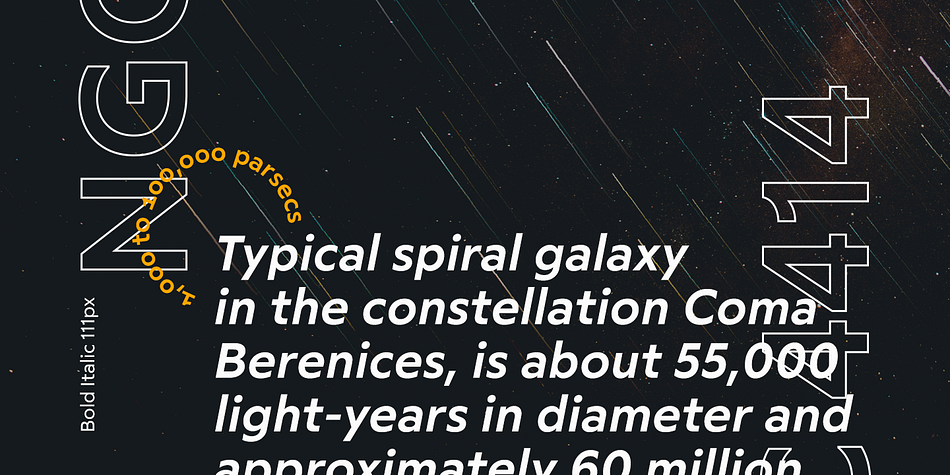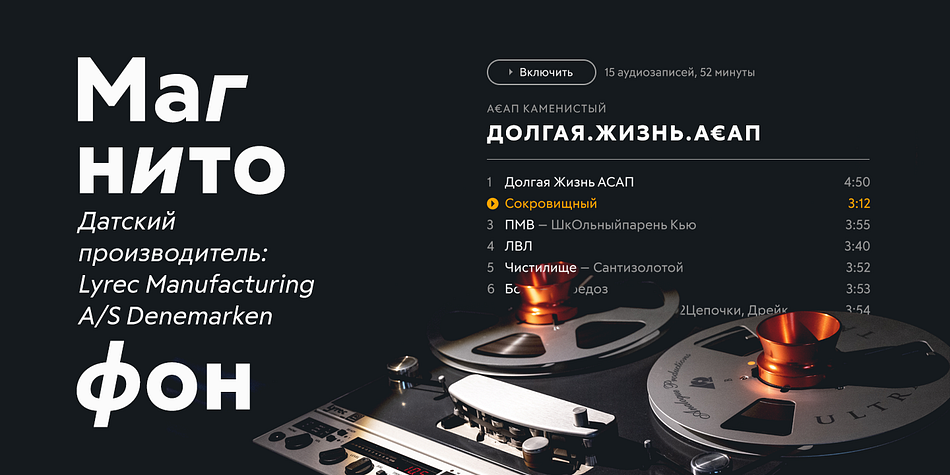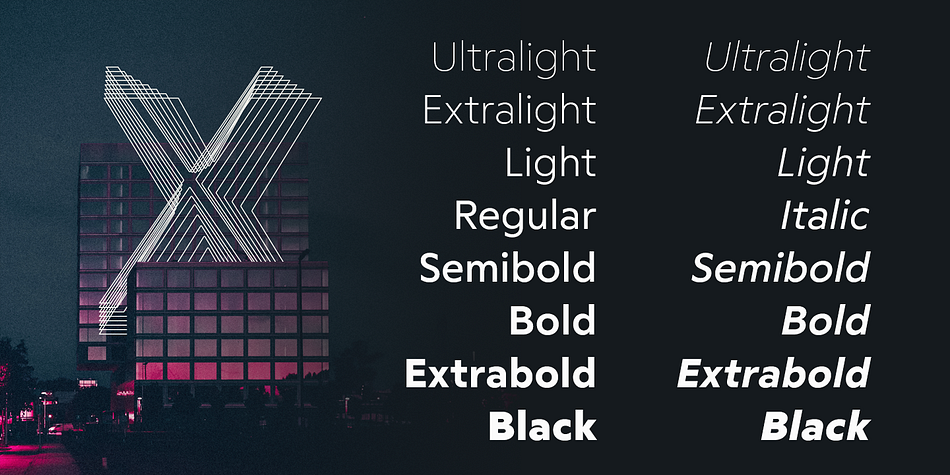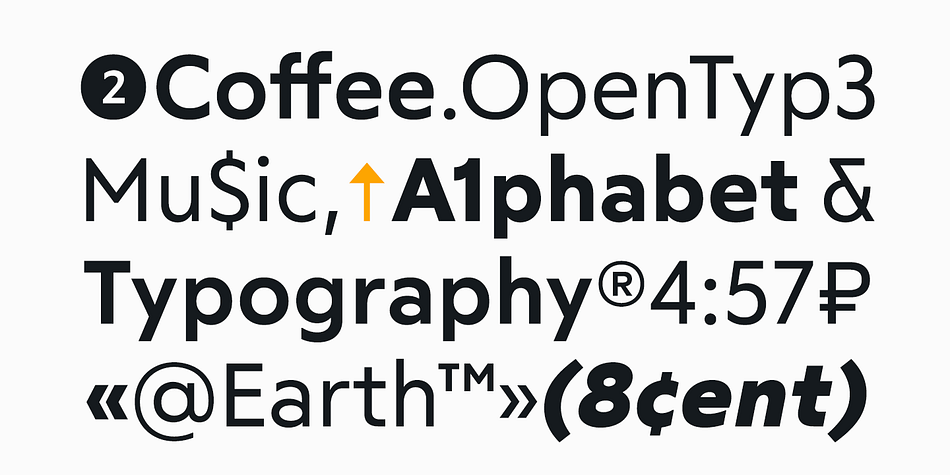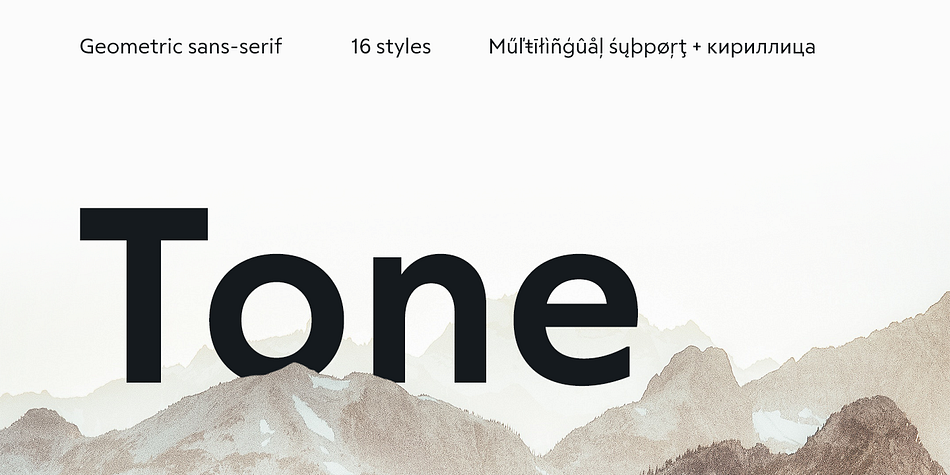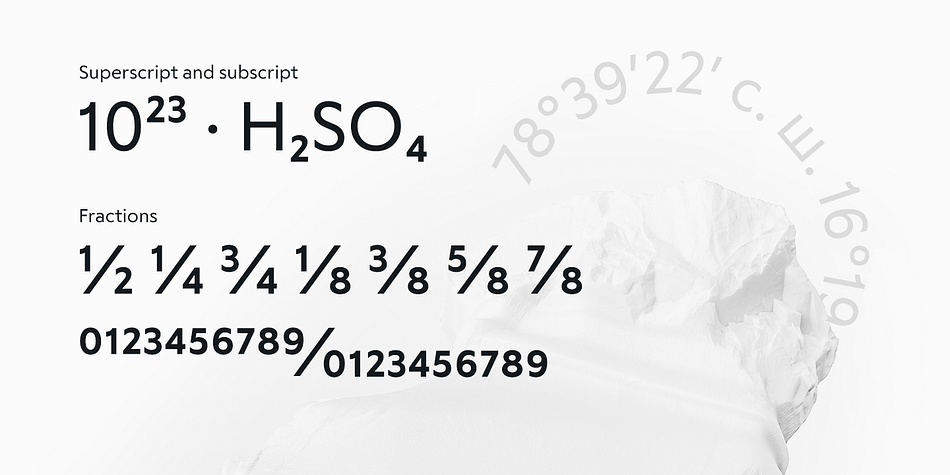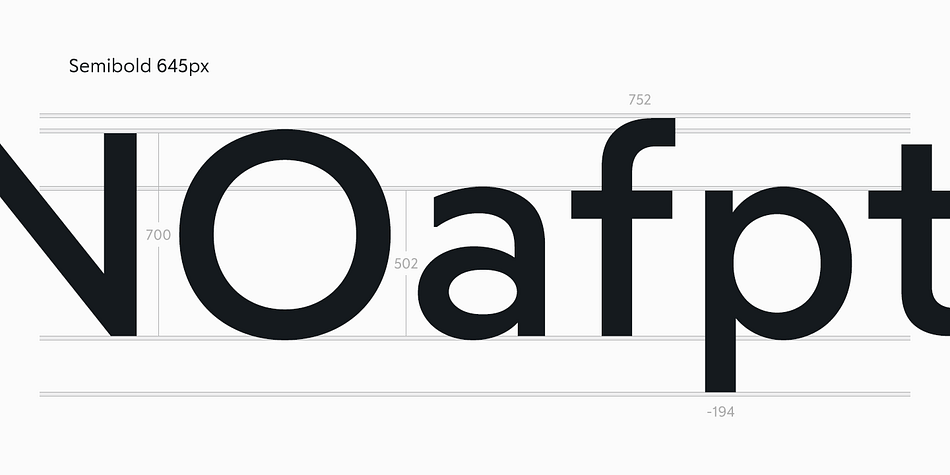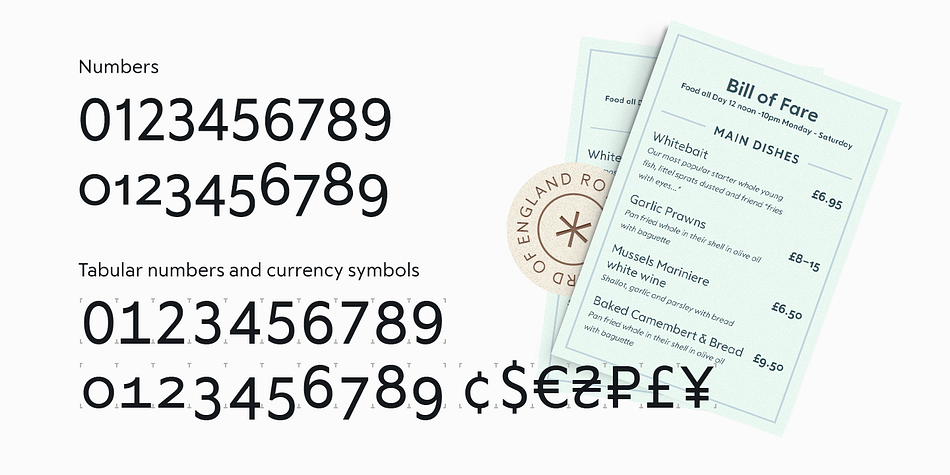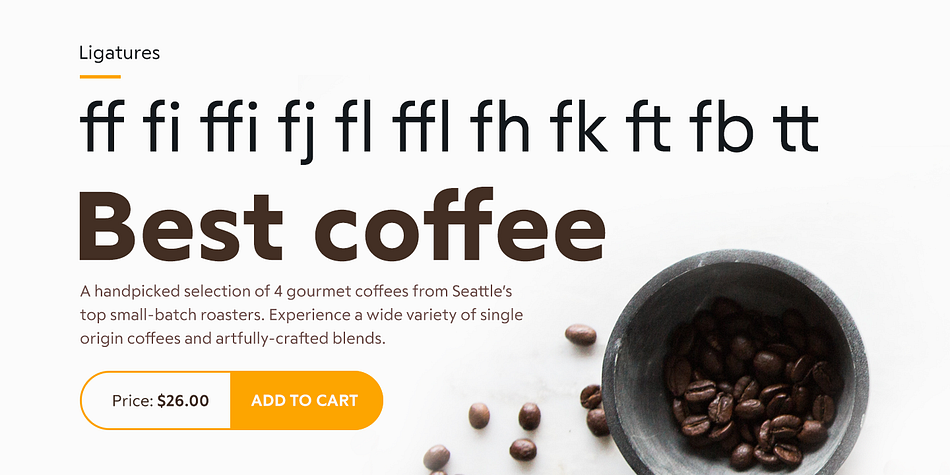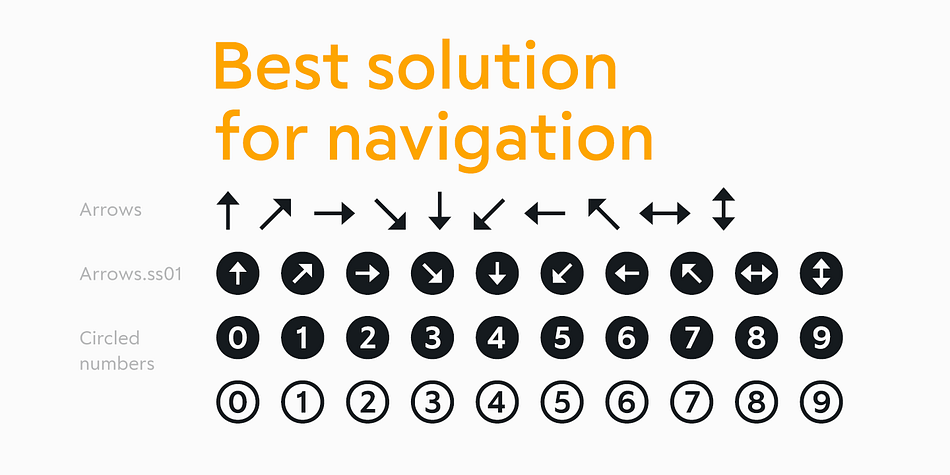
Designed by Misha Panfilov, RF Tone is a sans serif font family. This typeface has sixteen styles and was published by Russian Fonts.
Tone was inspired by classic geometric sans-serif fonts but has a distinct modern day spirit. Contains 16 styles from ultralight to black: 8 regulars and 8 italics. Have a multilingual support and big amount of OpenType features.
This typeface is comfortable to read in small sizes. Great for big pieces of text or as the main typeface in website design. Logotypes and branding, packaging, posters, editorial design, music covers, navigation systems, videos — these are just a few areas in which Tone can help you.
Opentype features: old-style figures, tabular and tabular old-style, tabular currency symbols, ligatures, stylistic alternates, fractions and automatic frations, circled numbers, arrows and stylistic alternates for arrows, superscript and subscript, case sensitive forms.
Multilingual support: Latin, latin extended, cyrillic and cyrillic extended (more than 70+ languages).